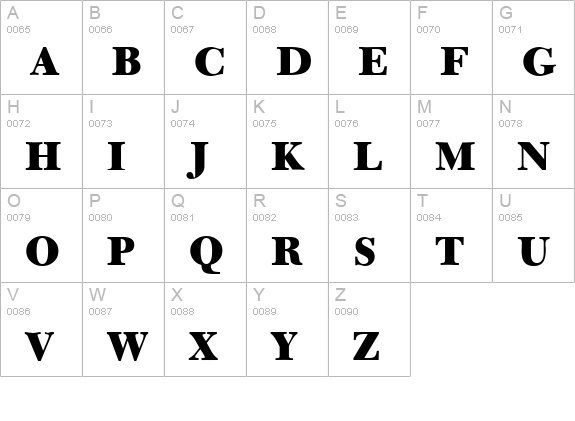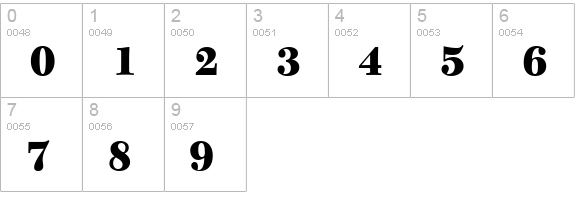
C651-Roman-Black-Regular Font Details
C651-Roman-Black-Regular is a maximum-weight, dramatic variant in the C651 typeface family \xE2\x80\x94 well suited to maximum-impact headlines, posters, and packaging.
C651-Roman-Black-Regular font is a timeless and elegant typeface that exudes sophistication and style. Its bold and distinctive design makes it perfect for a wide range of projects, from branding to editorial design. The striking black weight of this font commands attention and adds a touch of refinement to any text. What sets C651-Roman-Black-Regular font apart is that it is not only visually appealing but also highly versatile, ensuring that it can be used across various design applications with ease. Whether you're creating a logo, a poster, or a website, this font will elevate your design and make a lasting impression. Best of all, C651-Roman-Black-Regular font is available for free download at FontsMarket.com. This means that you can access this premium font without any cost, making it a valuable addition to your font library. Don't miss out on the opportunity to enhance your designs with the sophisticated charm of C651-Roman-Black-Regular font.